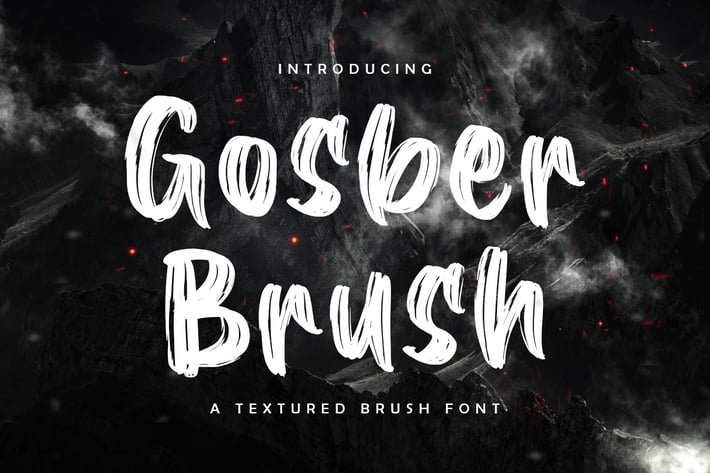
Gosber Brush Font
The hand-drawn font that was created with a dry brush which gives more personal touch and makes the font looks being customized.
This font is suitable to use as a logotype, product designs, label, watermark, social media posts, apparel, invitation, signboard, sports club, motor/car, special events, or anything that needs handwriting taste.